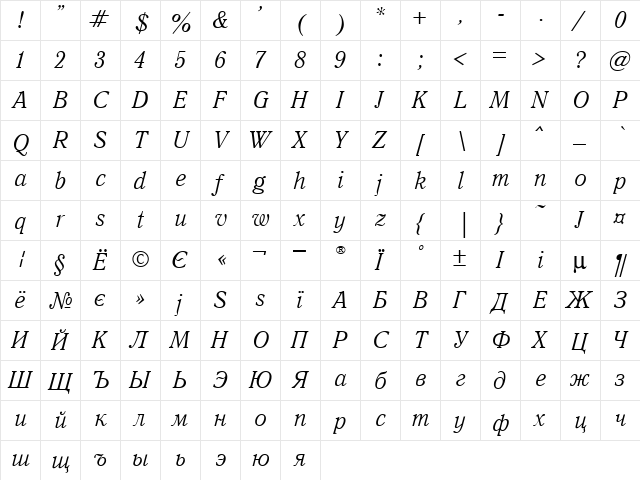
Kvant Italic
Design Context for Kvant Typeface
Kvant offers clean, dependable letterforms without strong stylistic allegiance, making it a practical choice for designers who need flexibility. The slanted form adds forward momentum and visual energy.
Pro Tip: Try Kvant for annotation and caption copy alongside an upright companion — the contrast in angle creates a dynamic but ordered typographic system.